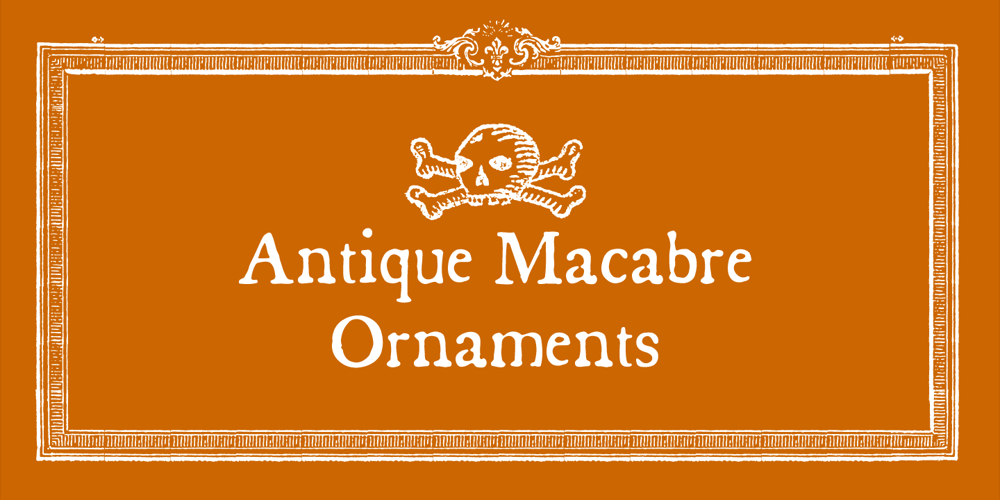
Antique Macabre Ornaments
Antique Macabre Ornaments font
Antique Macabre Ornaments Font Family was designed by Stephen Miggas and published by Aerotype. Antique Macabre Ornaments contains 1 styles and family package options. A set of authentic 18th century Belgian printers ornaments provided the reference for this creepy group of glyphs.